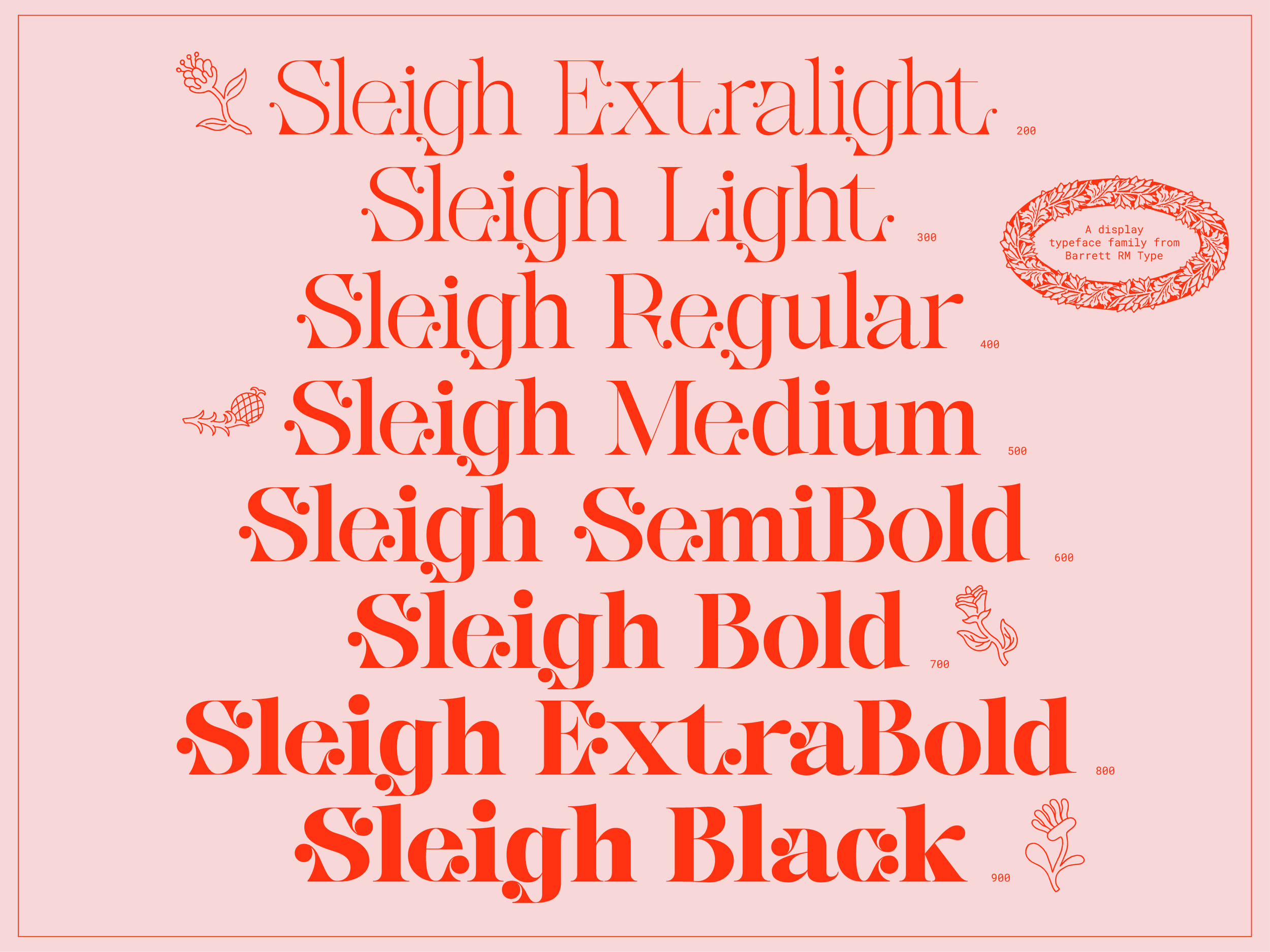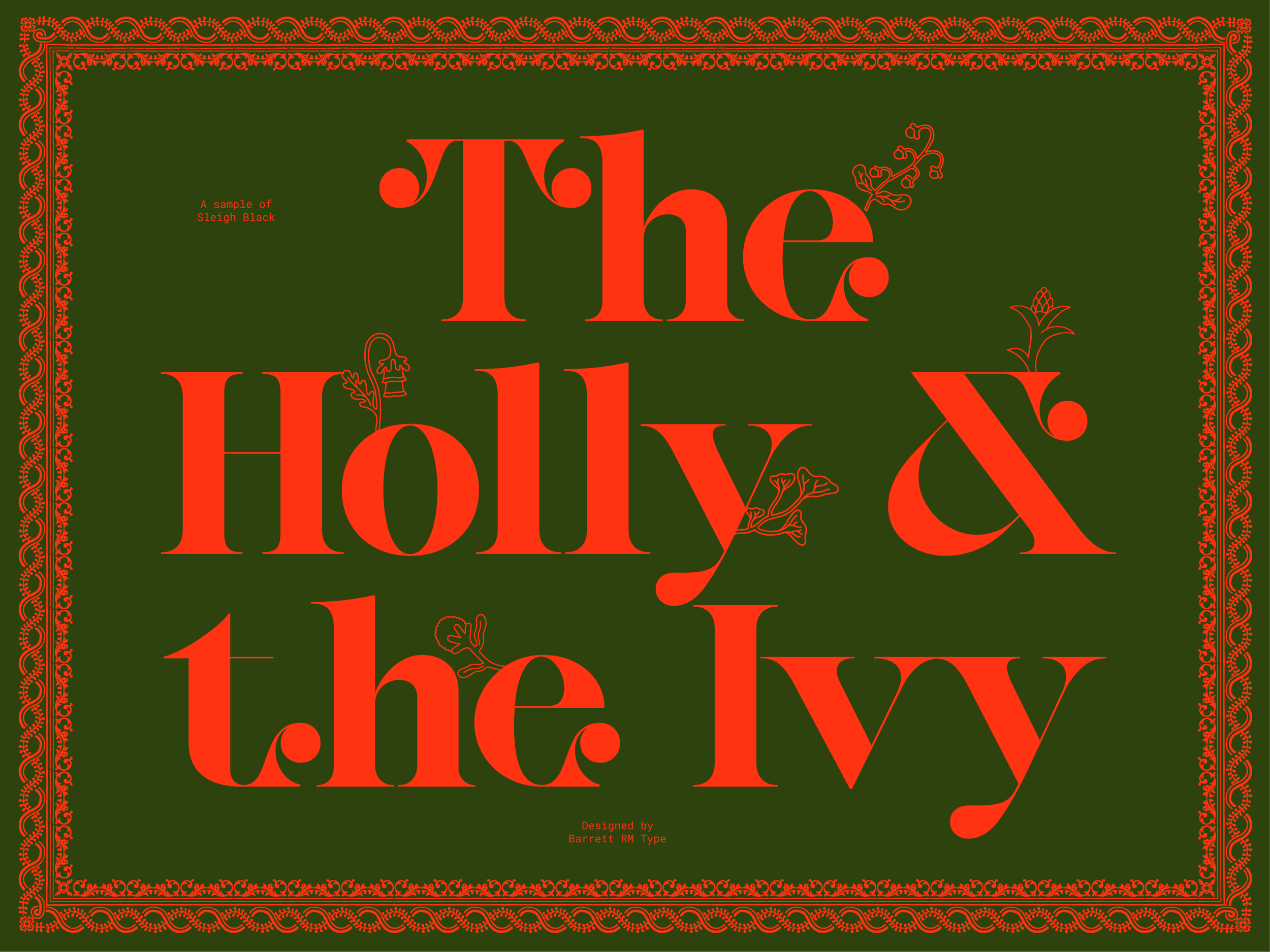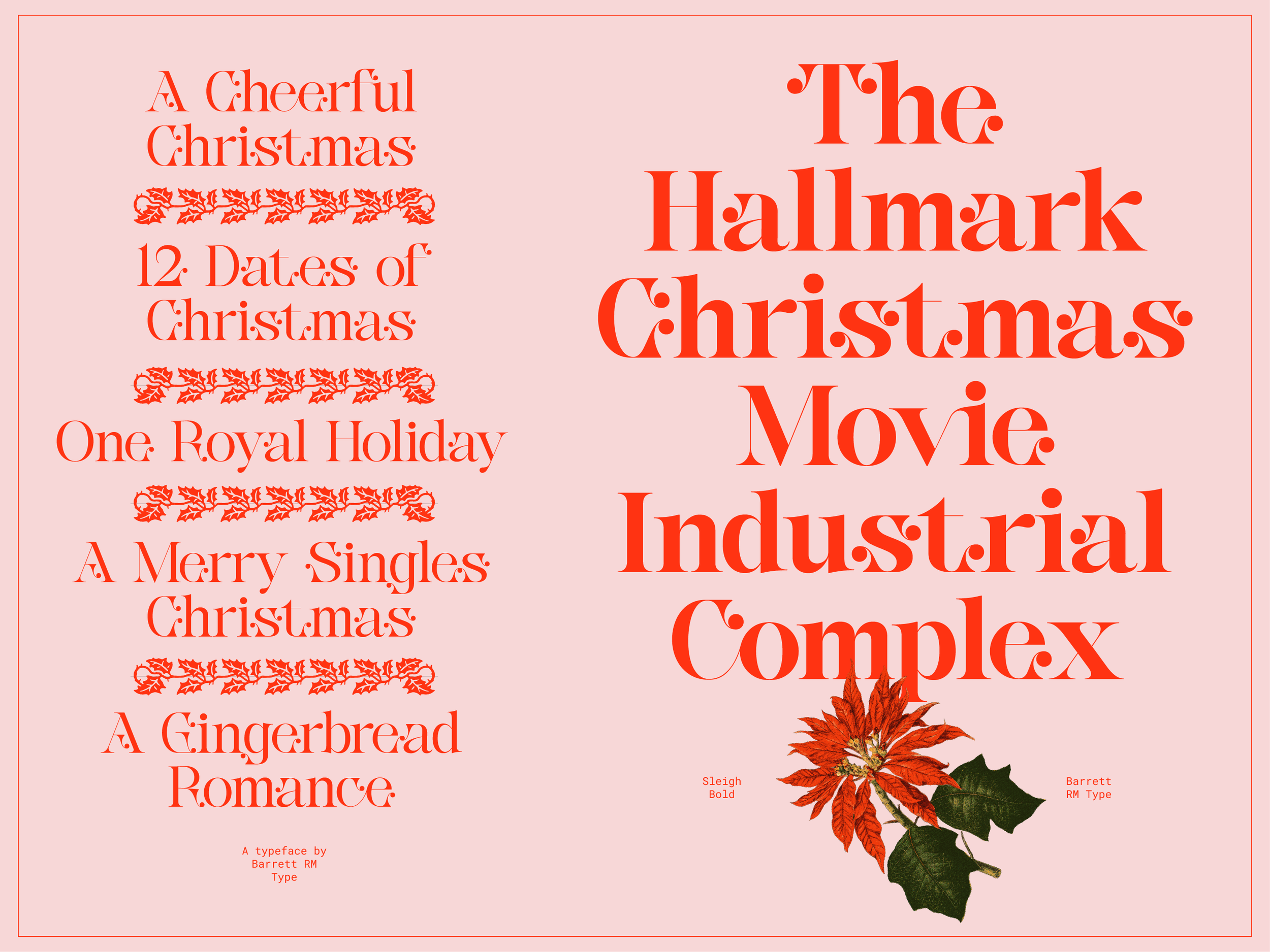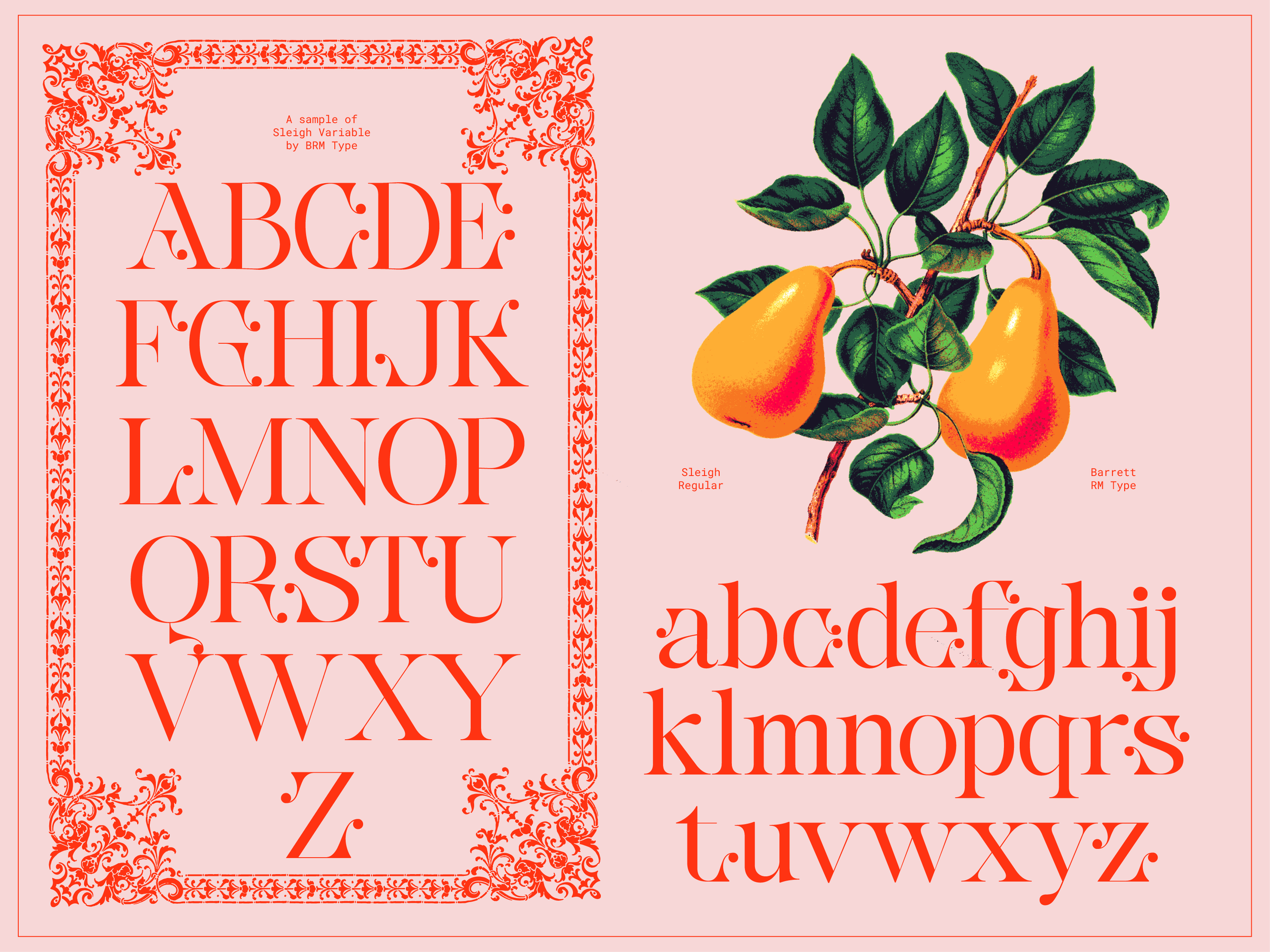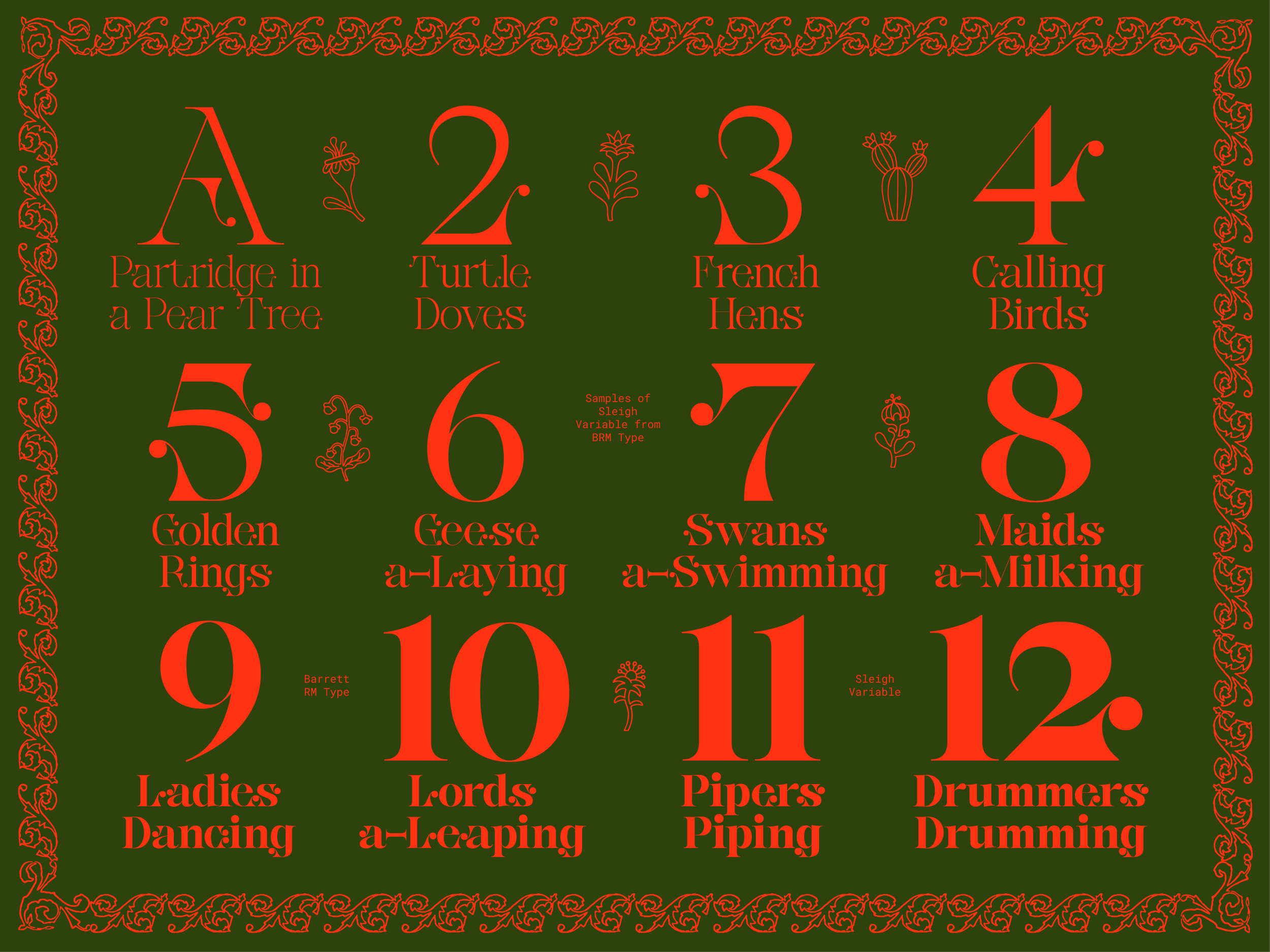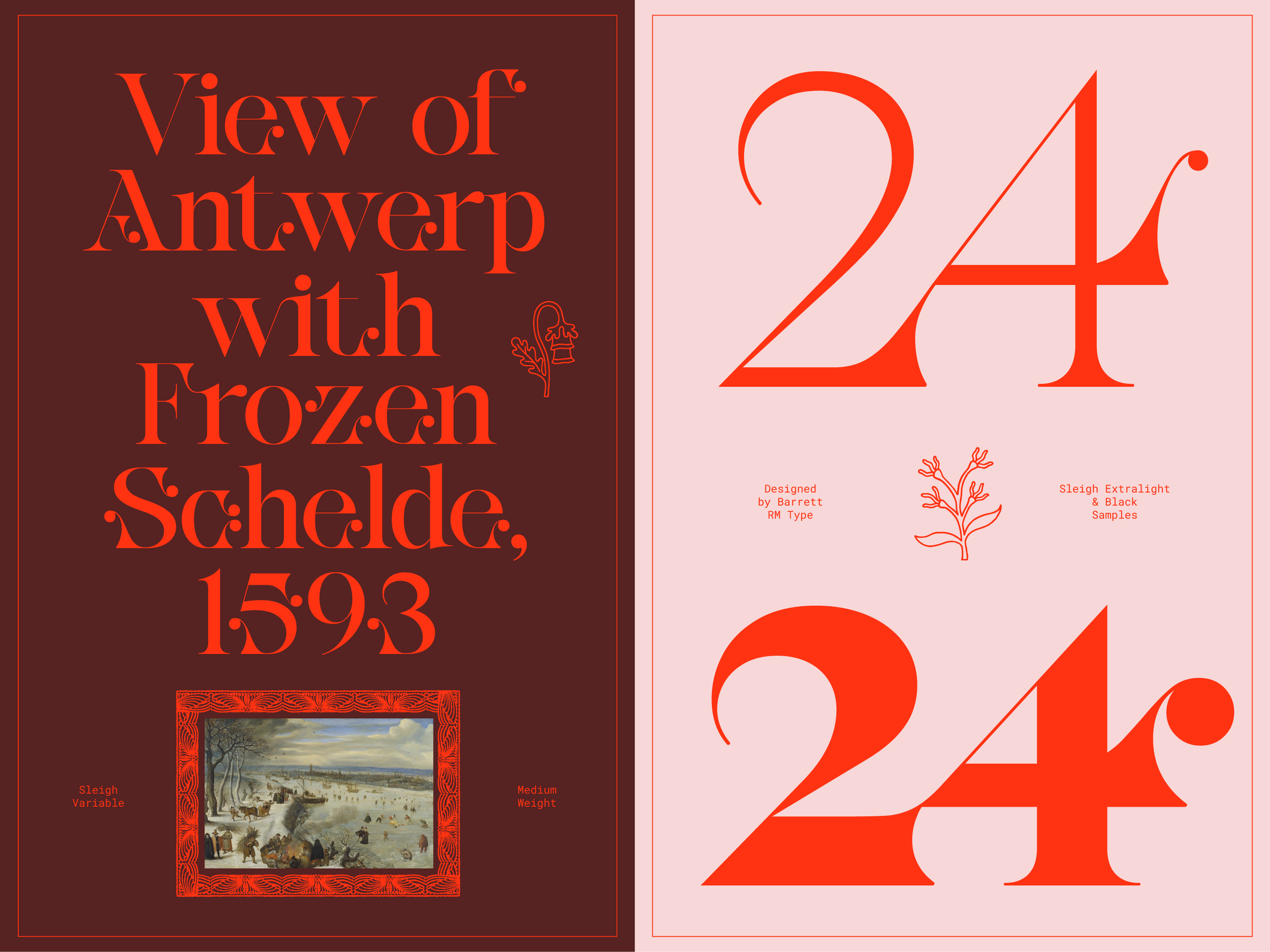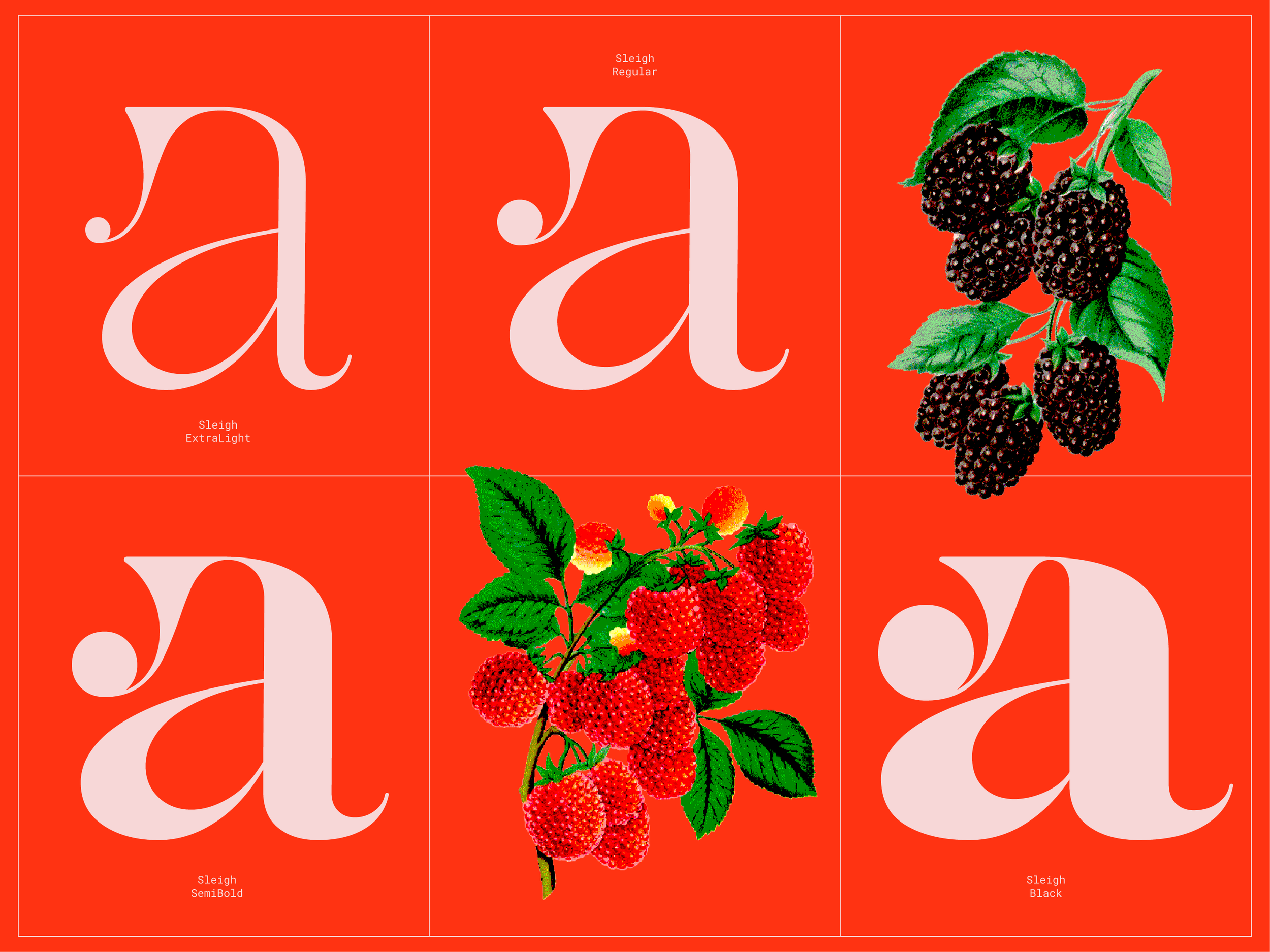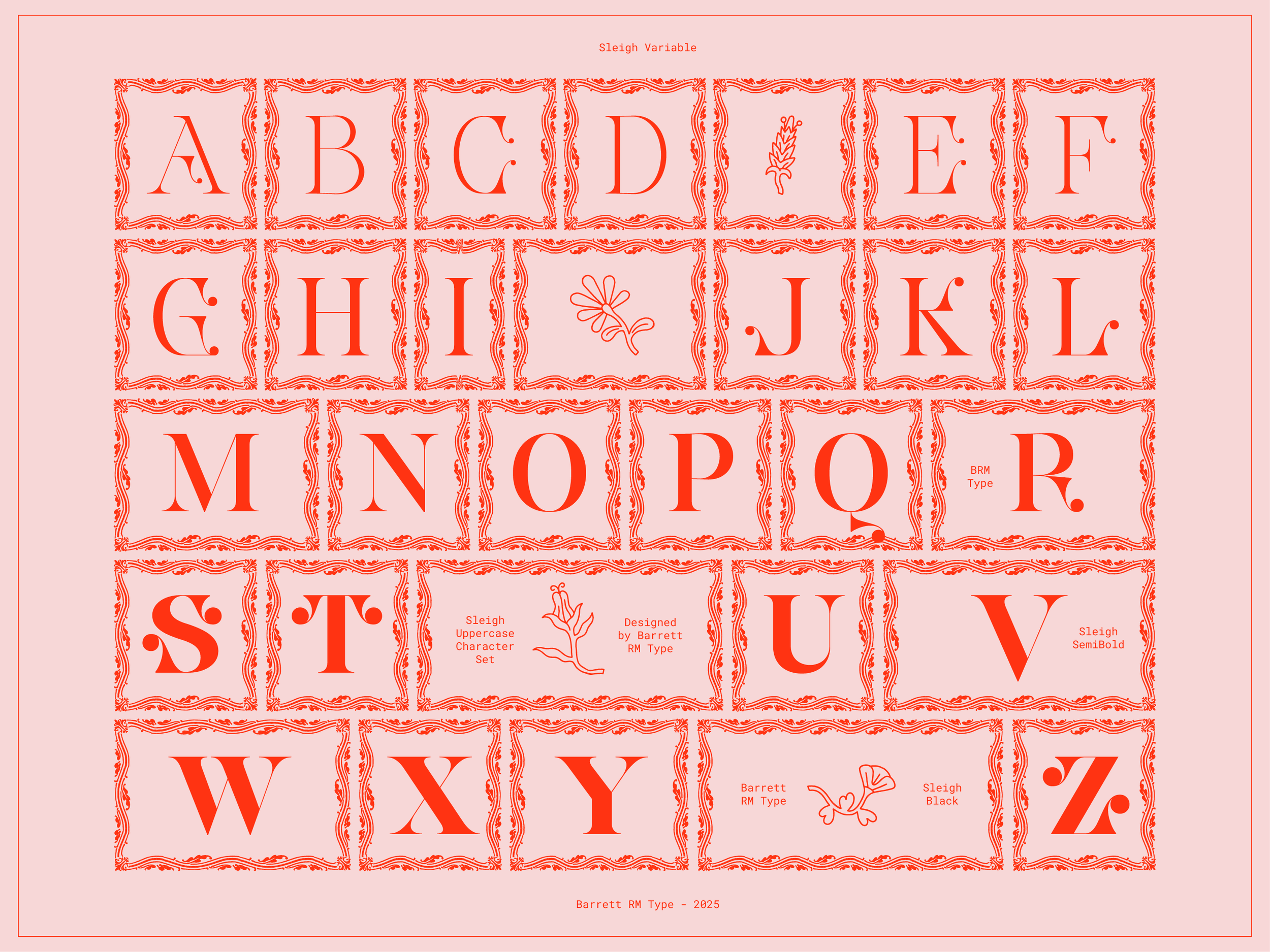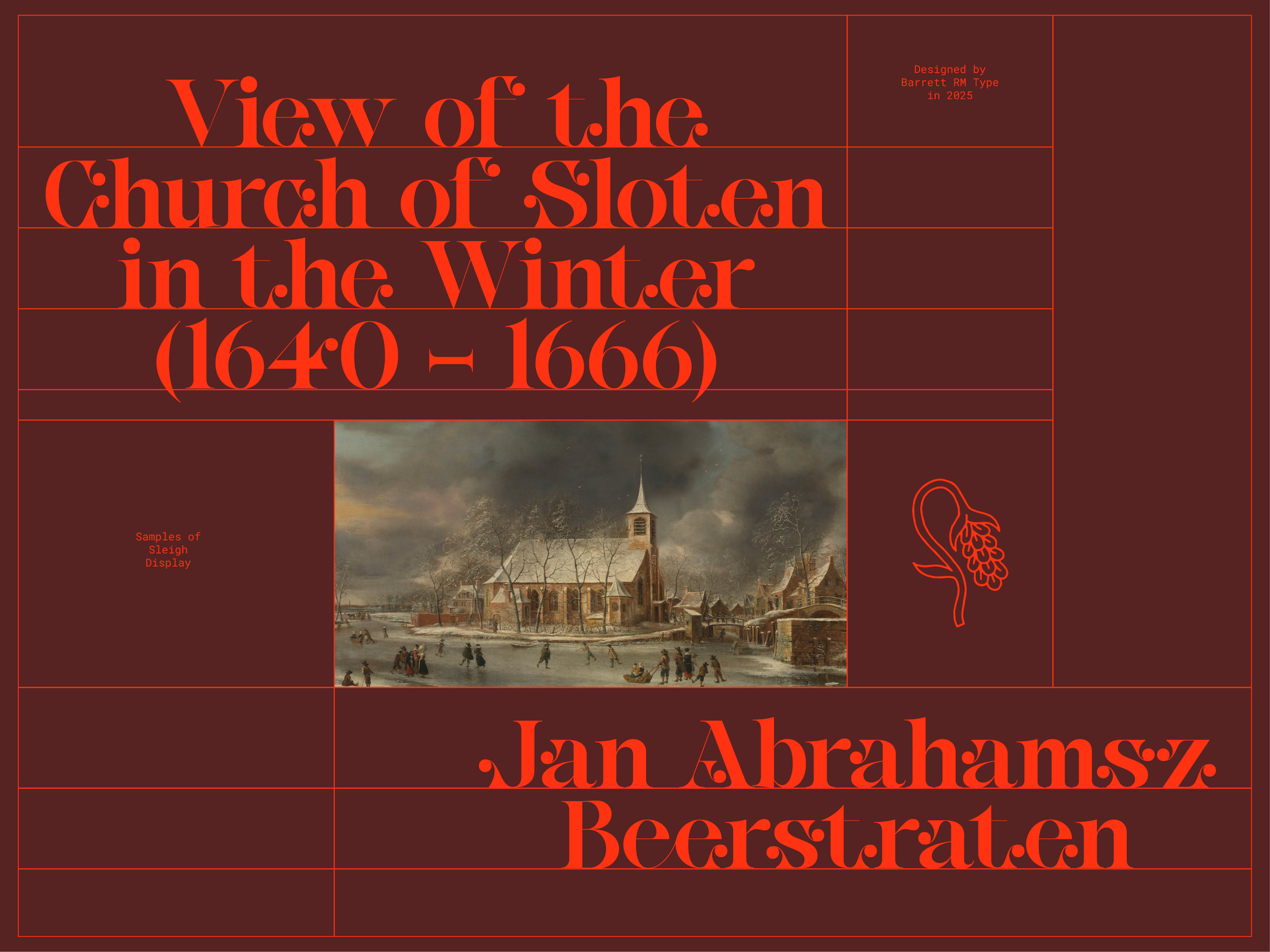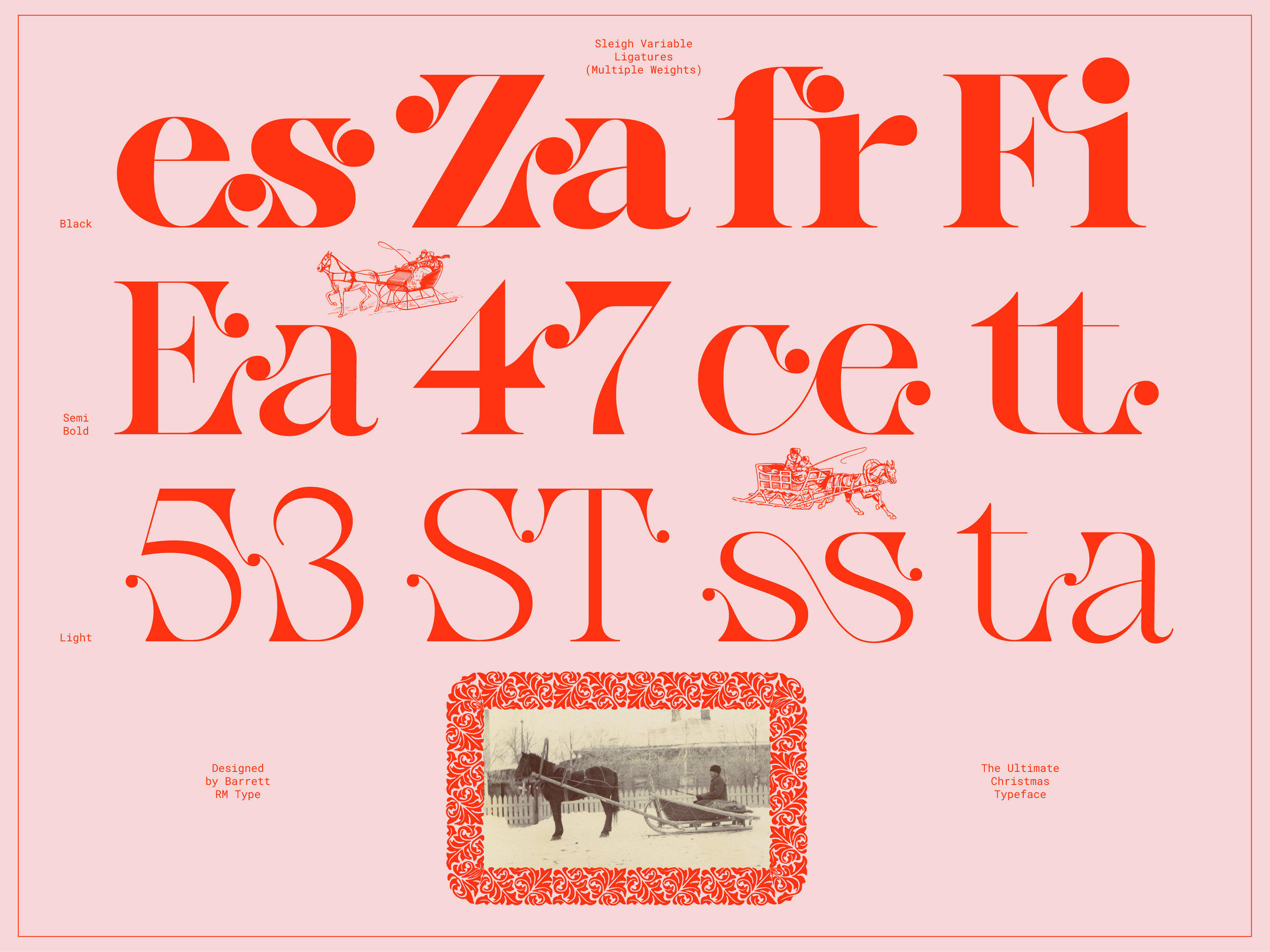
Sleigh - Display Typeface
Introducing Sleigh, a versatile serif typeface that embodies the charm and elegance of a sleigh ride. Inspired by the distinct curled shape of the front of a sleigh, this typeface brings a touch of whimsy to your designs while maintaining its versatility. Usable for both text and display purposes, Sleigh strikes a balance between legibility and uniqueness.